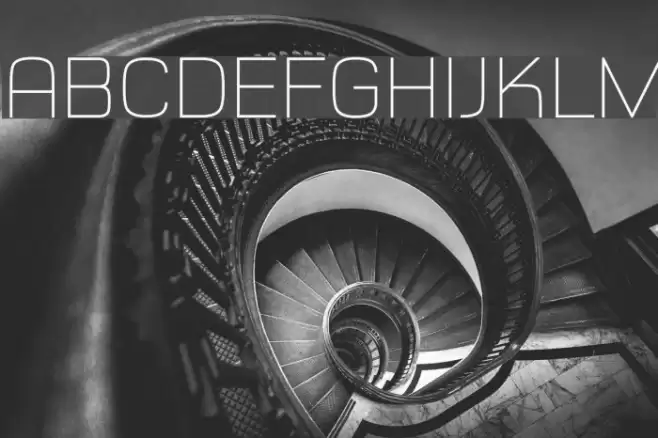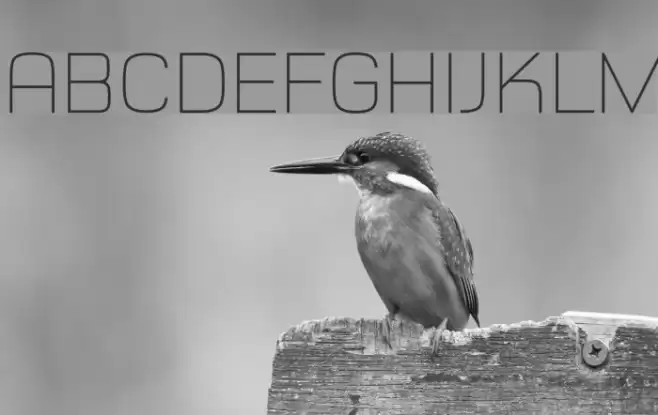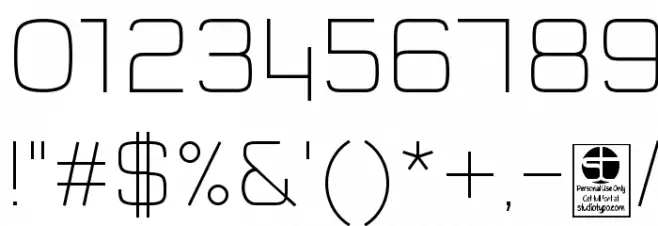
Typo Style Thin Demo Font
Typo Style Thin Demo Description
This font features a sleek, modern design with thin, uniform strokes that convey a sense of minimalism and elegance. The characters are constructed with a geometric precision, offering a clean and contemporary look. The uppercase and lowercase letters maintain a consistent height and width, providing a harmonious appearance. The numerals and special characters are designed with the same attention to detail, ensuring readability and style. This font is ideal for projects that require a sophisticated and understated aesthetic.
A sleek, modern font with thin, geometric strokes for a minimalist look from Uncategorized fonts.
- Proposed Projects: Ideal for branding, editorial design, digital interfaces, and minimalist posters.